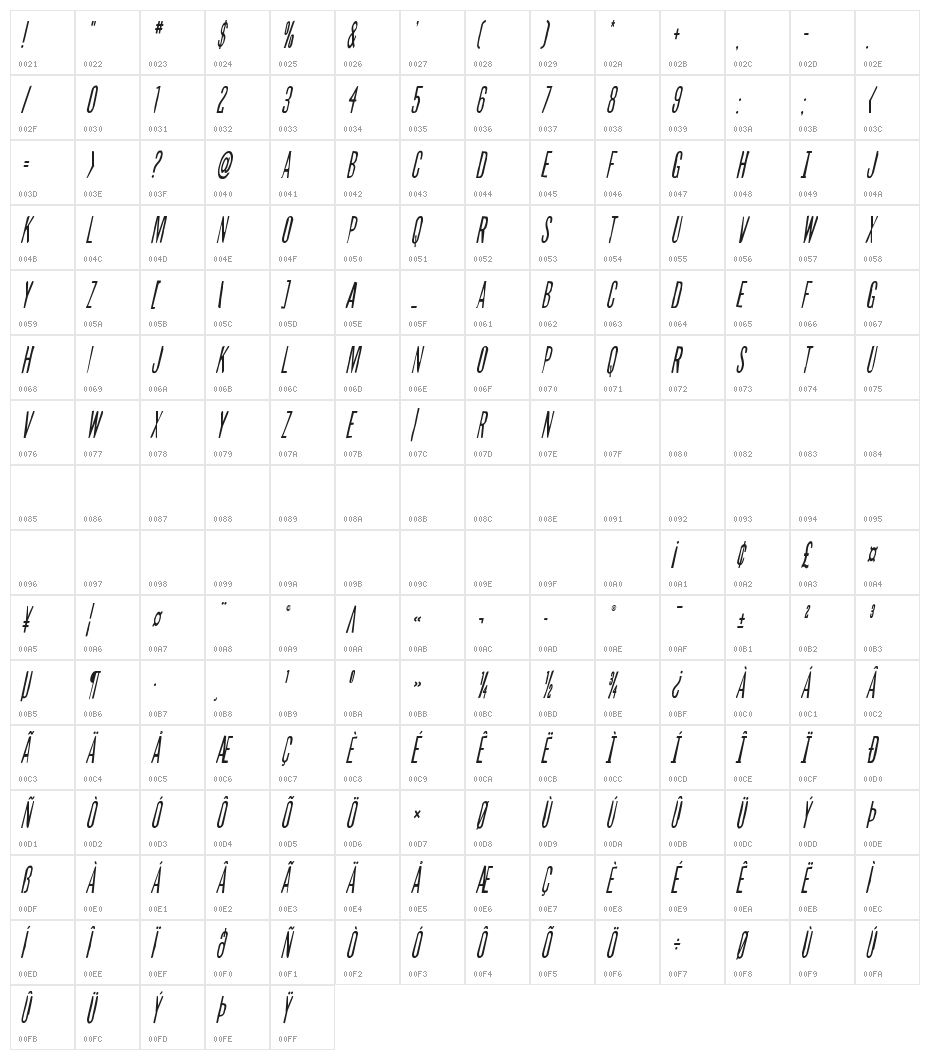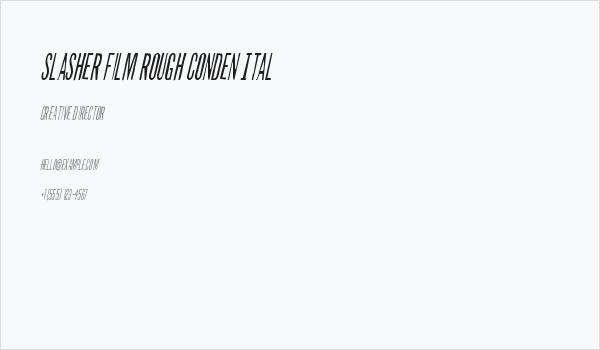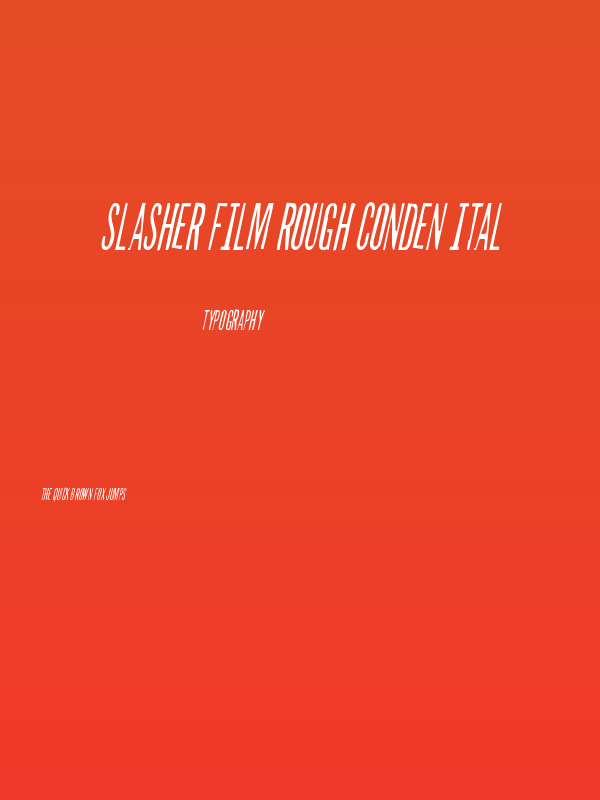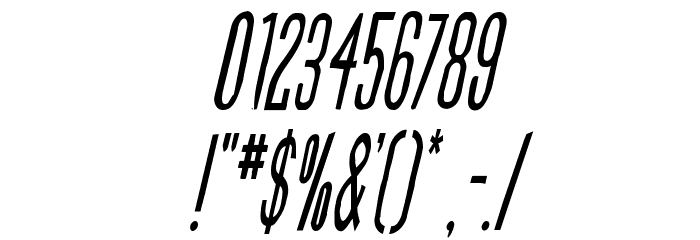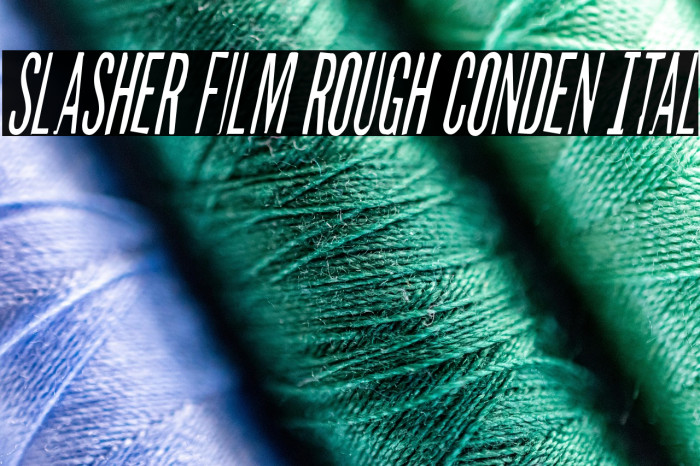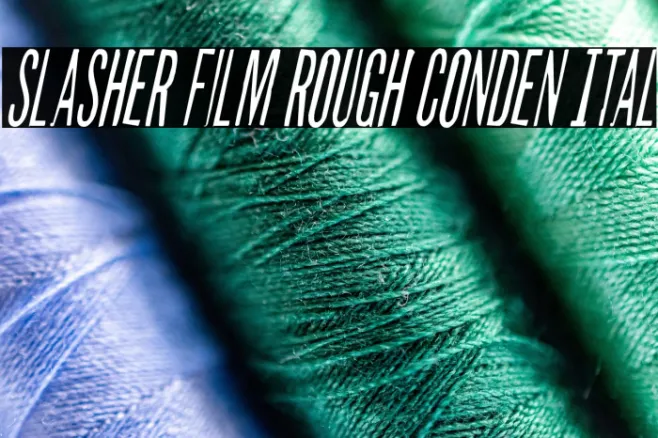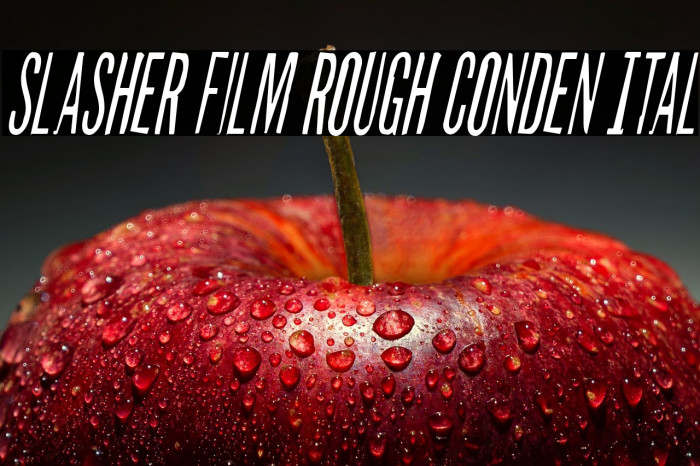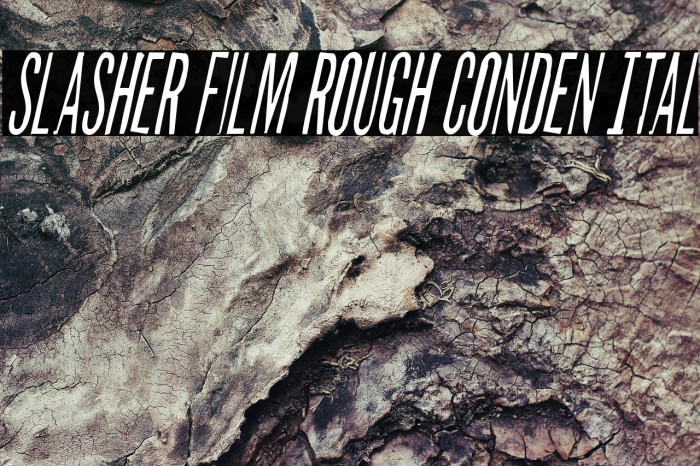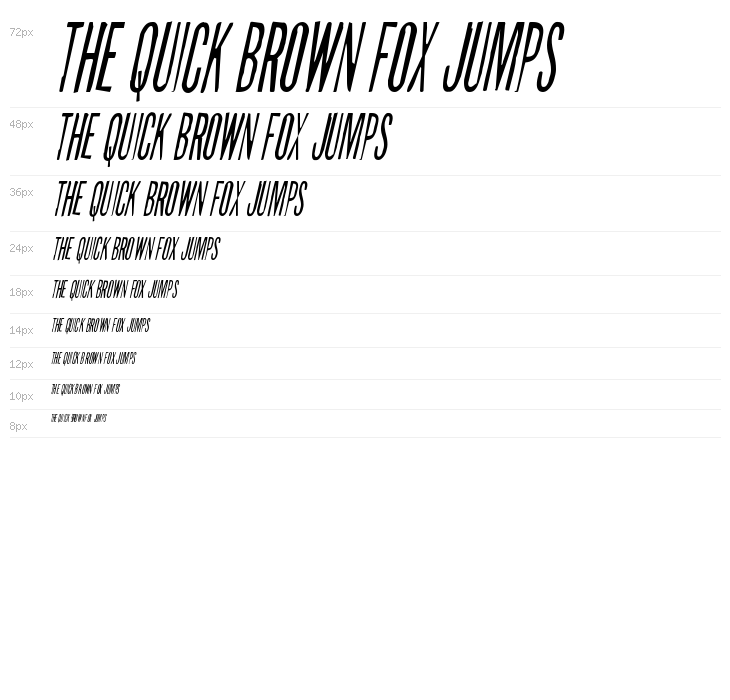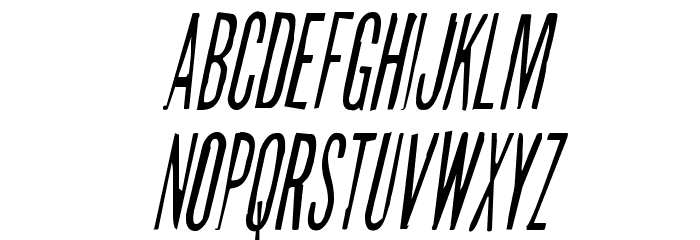
Slasher Film Rough Conden Ital Font
Slasher Film Rough Conden Ital Description
This font features a sharp, edgy design with a distinctly rough and condensed appearance. The italicized letters add a dynamic and aggressive feel, making it ideal for projects that require a bold statement. The characters are tightly spaced, enhancing the condensed look and contributing to its intense, dramatic style. The high contrast between the thick and thin strokes further emphasizes its striking appearance. This font is perfect for creating a sense of urgency or excitement, often seen in horror or thriller-themed designs.
| Proposed Projects | Movie posters, book covers, video game titles, and promotional materials for horror or thriller genres. |